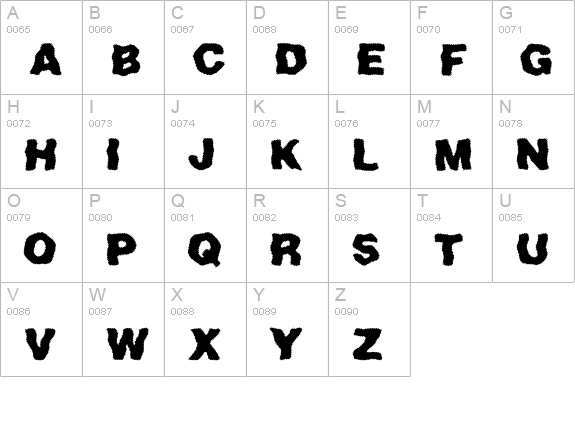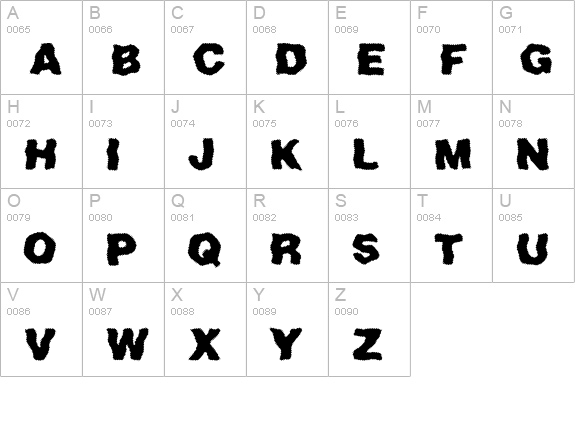
Hatchett Font Details
Hatchett font is a stunning and versatile typeface that is sure to elevate any design project. With its unique and eye-catching letterforms, this font is perfect for headlines, logos, branding, and more. But what sets Hatchett font apart is not just its striking design, but also its accessibility. This font is available for free, making it an invaluable resource for designers on a budget or those simply looking to experiment with a new typeface. You can easily download Hatchett font at FontsMarket.com, a trusted online platform for all your font needs. Whether you're a professional designer or a DIY enthusiast, FontsMarket.com offers a wide range of fonts to suit your creative vision. And with Hatchett font being freely available, there's no reason not to give it a try. So why wait? Enhance your designs with the bold and captivating Hatchett font today. Download it for free at FontsMarket.com and let your creativity soar.